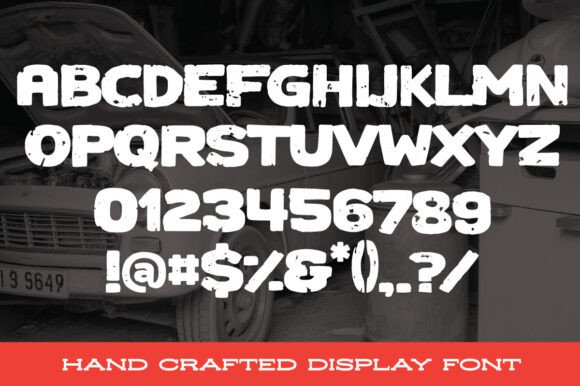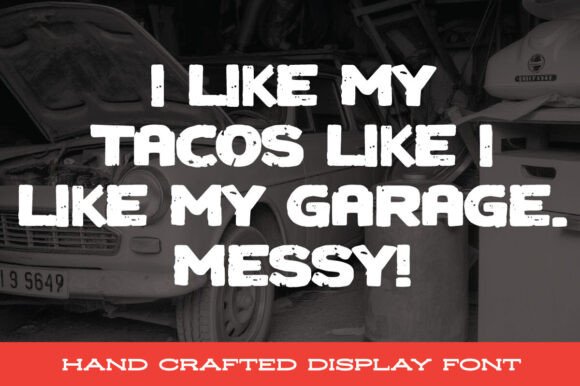
Grit Force Font: Unleash the Power of Bold, Distressed Typography
In the world of typography, few fonts can convey the sense of strength, resilience, and raw energy that Grit Force embodies. This powerhouse of a font is built for impact and attitude, making it the perfect choice for designers and crafters looking to add a bold, rugged touch to their projects. With its thick, heavy letterforms and rugged texture, Grit Force commands attention and exudes an unmistakable sense of grit and force.
The Perfect Font for High-Impact Designs
Grit Force is specifically designed for high-impact designs that require a bold, attention-grabbing aesthetic. Whether you’re creating a brand identity, designing a poster, or crafting sports-related graphics, this font is guaranteed to make a statement. Its industrial-style texture and weathered look give it a unique, battle-hardened appearance that’s perfect for reinforcing a tough, no-nonsense look.
Key Features of Grit Force Font
- Bold, Distressed Letterforms: Grit Force features thick, heavy letterforms with a rugged texture that gives it a unique, distressed look.
- High-Impact Aesthetic: This font is designed to command attention and make a statement, making it perfect for high-impact designs.
- Industrial-Style Graphics: Grit Force is ideal for industrial-style graphics, sports designs, and posters that require a bold, rugged aesthetic.
- Weathered yet Powerful: The font’s weathered look gives it a battle-hardened appearance, while its bold letterforms convey raw energy and strength.
Why Choose Grit Force Font?
So, why choose Grit Force font for your next design project? Here are just a few compelling reasons:
- Instant Impact: Grit Force is designed to grab attention and make a statement, ensuring your design stands out from the crowd.
- Versatility: This font is perfect for a wide range of design projects, from branding and posters to sports designs and industrial-style graphics.
- Easy to Read: Despite its bold, distressed aesthetic, Grit Force is surprisingly easy to read, making it perfect for headlines, titles, and short text blocks.
- Unique Aesthetic: The font’s rugged texture and weathered look give it a unique, one-of-a-kind aesthetic that’s sure to set your design apart.
Tips for Using Grit Force Font Effectively
To get the most out of Grit Force font, here are a few tips to keep in mind:
- Use it Sparingly: Grit Force is a bold, attention-grabbing font that’s best used sparingly. Use it for headlines, titles, or key phrases to add emphasis and impact.
- Pair it with Contrasting Fonts: To create visual interest, pair Grit Force with contrasting fonts that offer a smoother, more refined aesthetic.
- Experiment with Colors: Grit Force looks great in a range of colors, from bold brights to muted earth tones. Experiment with different colors to find the perfect fit for your design.
In conclusion, Grit Force font is a powerhouse of bold, distressed typography that’s perfect for designers and crafters looking to add a rugged, industrial-style touch to their projects. With its thick, heavy letterforms and rugged texture, this font exudes strength, resilience, and raw energy. Whether you’re creating a brand identity, designing a poster, or crafting sports-related graphics, Grit Force is the perfect choice for high-impact designs that require a bold, attention-grabbing aesthetic.